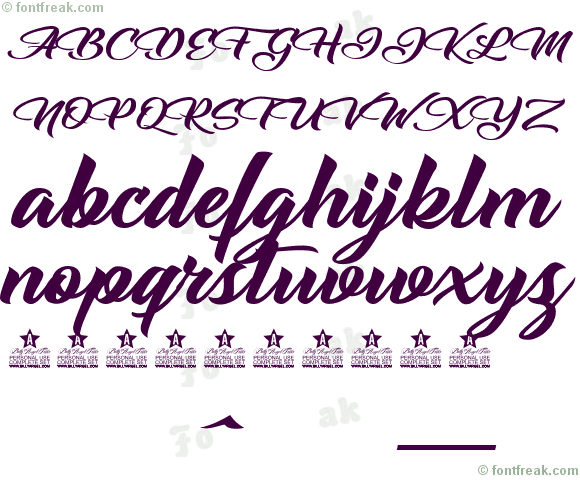
Emotional Rescue
About Emotional Rescue
The Emotional Rescue font by Billy Argel Fonts is a captivating script typeface that perfectly captures the essence of heartfelt expression. This font, classified under the script category, features a fluid and elegant design that evokes a sense of warmth and nostalgia. Its strokes are characterized by varying weights, creating a dynamic contrast that enhances readability while maintaining an artistic flair. The generous spacing between characters allows for a breath of fresh air in the design, making it suitable for a range of creative applications.
This font is particularly well-suited for wedding invitations, where its romantic curves can help convey deep emotions. It also shines in greeting cards, lending a personal touch to heartfelt messages. Additionally, the Emotional Rescue font can serve as an eye-catching title on movie posters, drawing attention with its distinctive style. Restaurant menus can benefit from its elegant appearance, making the dining experience feel more sophisticated and inviting. Content creators and graphic designers will find this font an invaluable addition to their toolkit, as it adds a unique touch to various projects.
What sets the Emotional Rescue font apart is its ability to blend artistic elegance with practical usability. Whether used for professional projects or personal creations, this font resonates with emotion, making it a standout choice for anyone looking to infuse their work with a sense of character and soul.